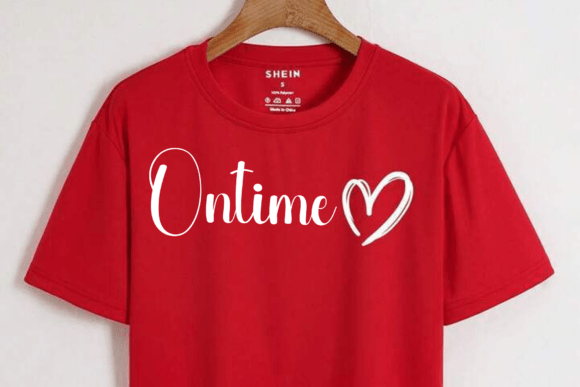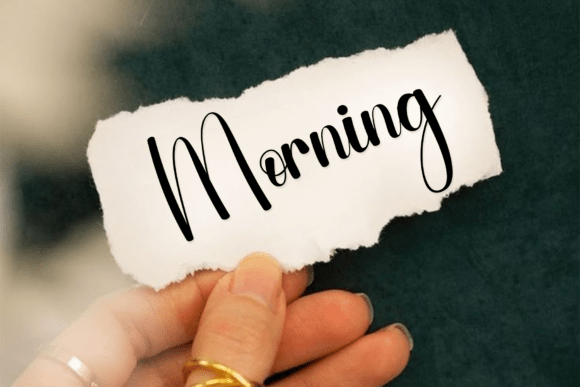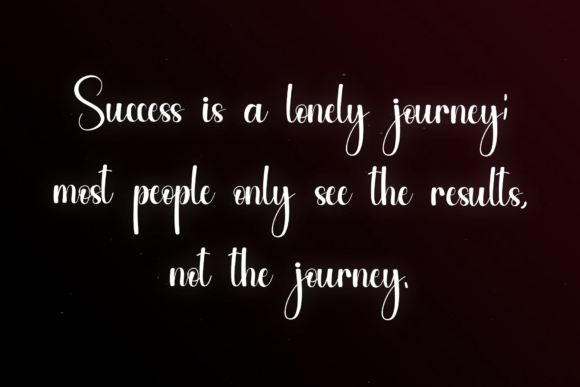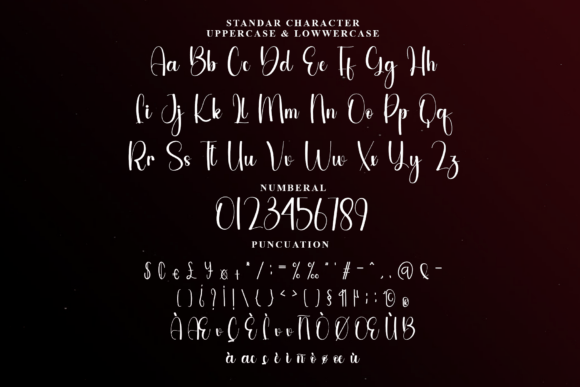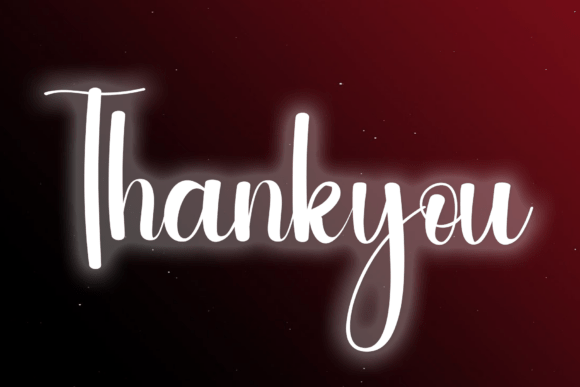
Introduction to Redblack Font
Redblack is a sophisticated and rhythmic script font that embodies a “unique and professional” autumnal visual voice.
As part of a modern handwritten collection, it features high-contrast strokes with thick, grounded downstrokes and delicate hairline connectors The typeface is characterized by vertically elongated letterforms and graceful, looping ascenders that mimic high-end inkwork.